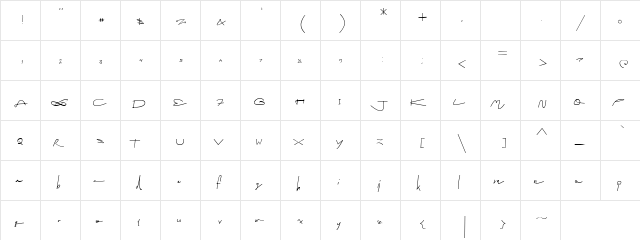
picablo fentier Regular
Design Context for picablo fentier Typeface
picablo fentier is a composed and adaptable typeface that performs quietly and consistently across a wide range of design contexts.